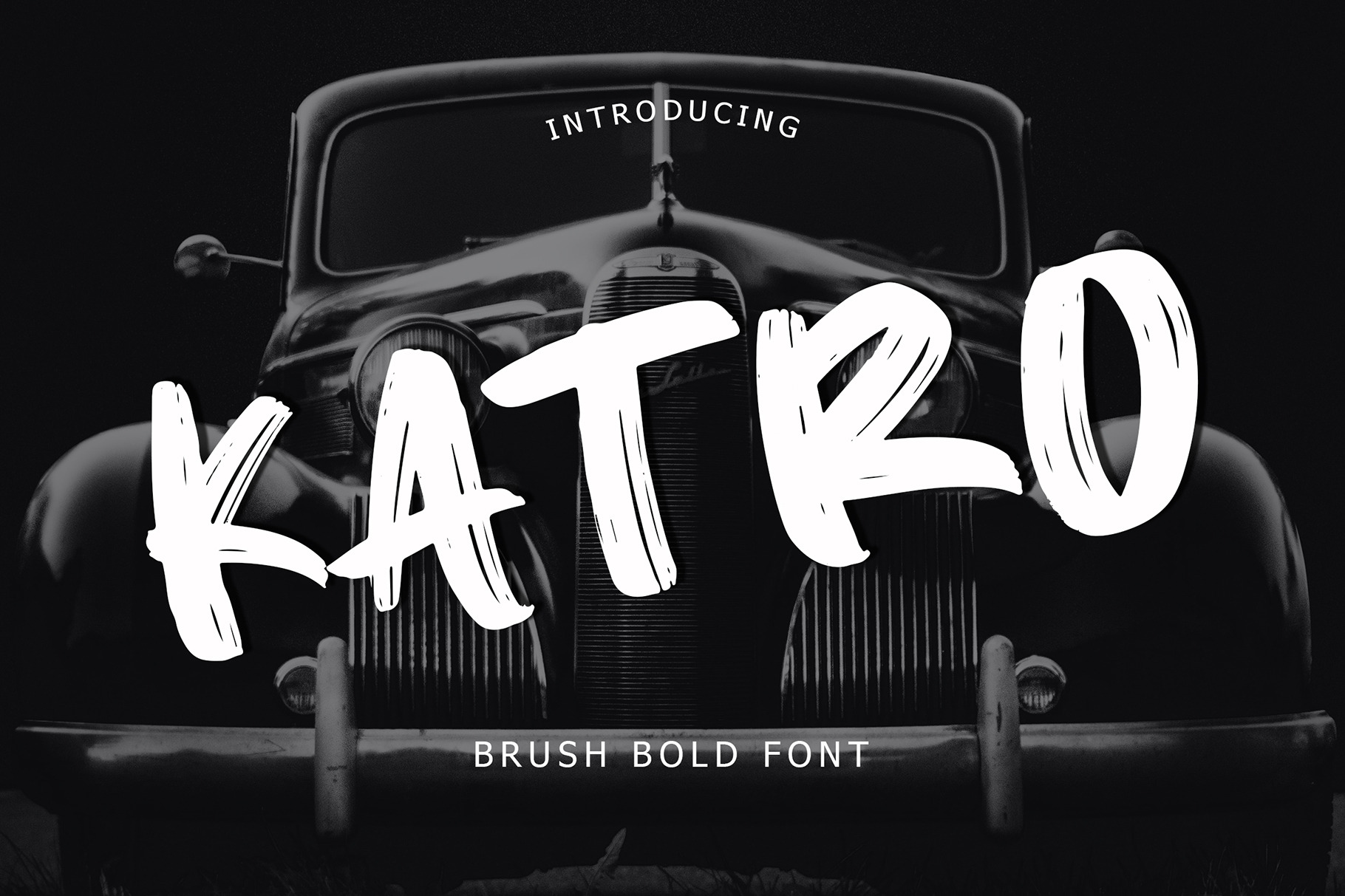
Katro Brush Bold Font
Katro is a Brush Bold Font font with a grunge brush style. This font perfect for branding or events projects, logo, T-shirt designs, social media posts, advertisements, product packaging, product designs, label, watermark, invitation, stationery, and any projects.
This font is also fit for fitness and gym, extreme sport, car racing, BMX, skateboard, trial, trial, Xtreme travel, and many more!